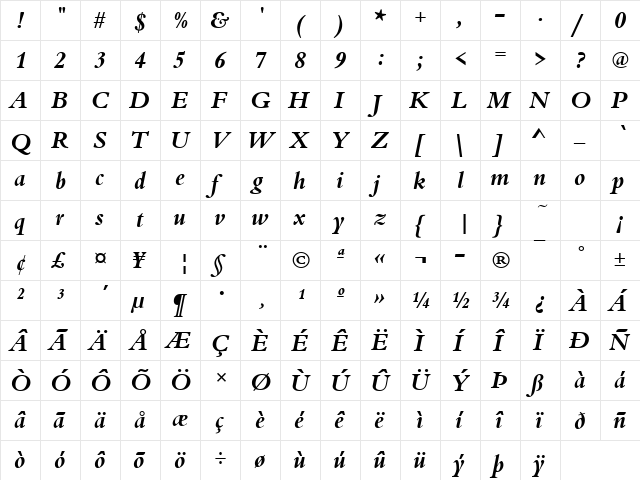
URWBeruiniT Bold Italic
Design Context for URWBeruiniT Typeface
URWBeruiniT takes a measured approach to typography — its balanced proportions and neutral character make it a reliable workhorse for both digital and print work. The slanted form adds forward momentum and visual energy. Its bold stroke weight gives it real presence on the page.
Pro Tip: Try URWBeruiniT for annotation and caption copy alongside an upright companion — the contrast in angle creates a dynamic but ordered typographic system.